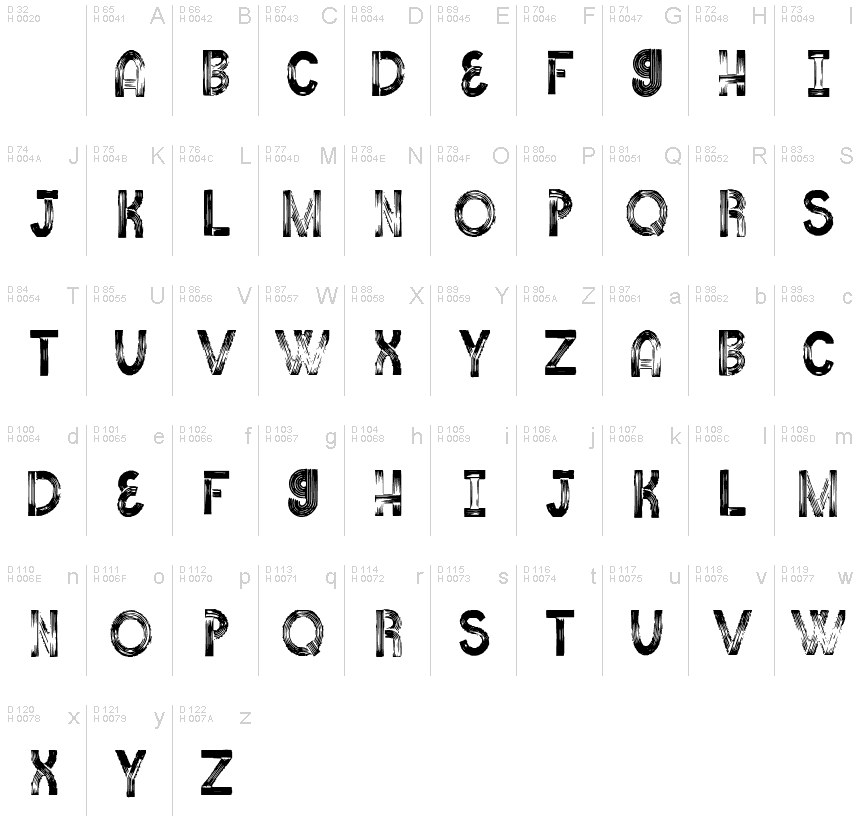
Noodles Regular
Noodles is a bold and groovy display font designed by Kahlia Bayani. Its eroded style gives a grunge effect that is perfect for designs that require a vintage and edgy look, such as music album covers, event posters, and product packaging. Noodles' unique and eye-catching style will make your designs stand out from the crowd. Add a touch of personality to your designs with Noodles.